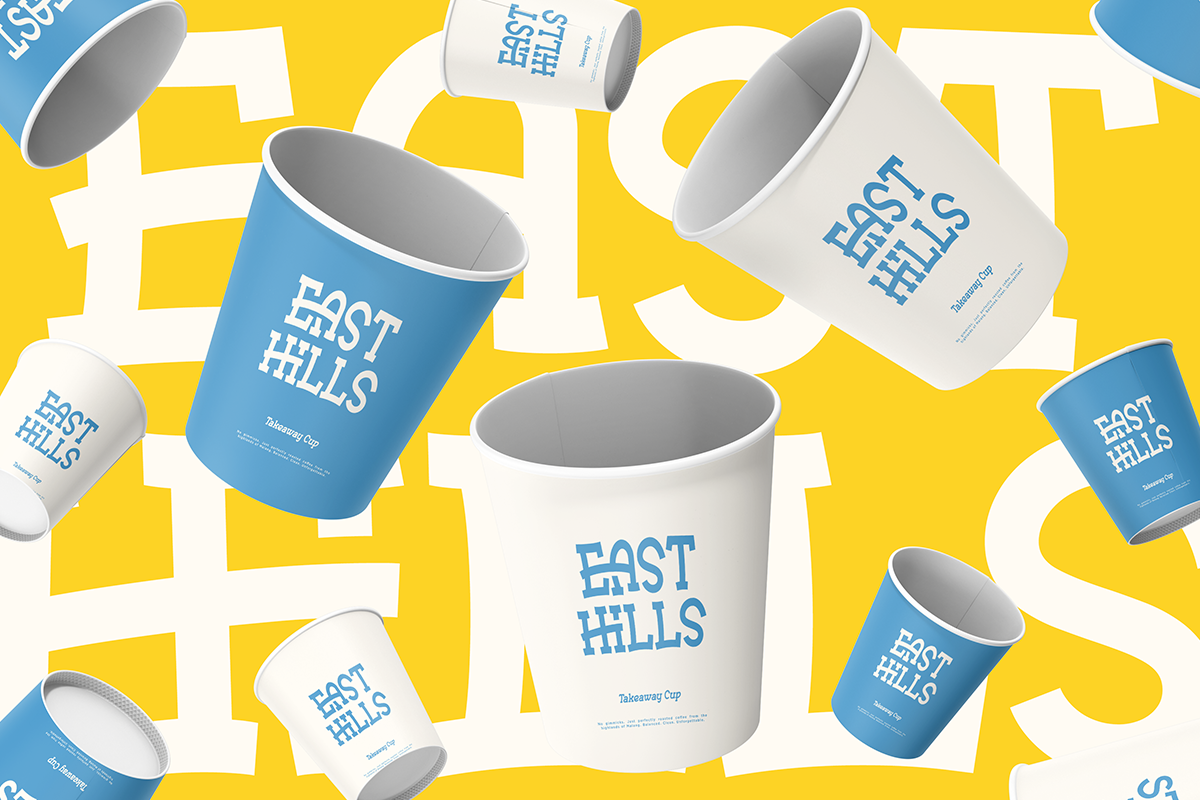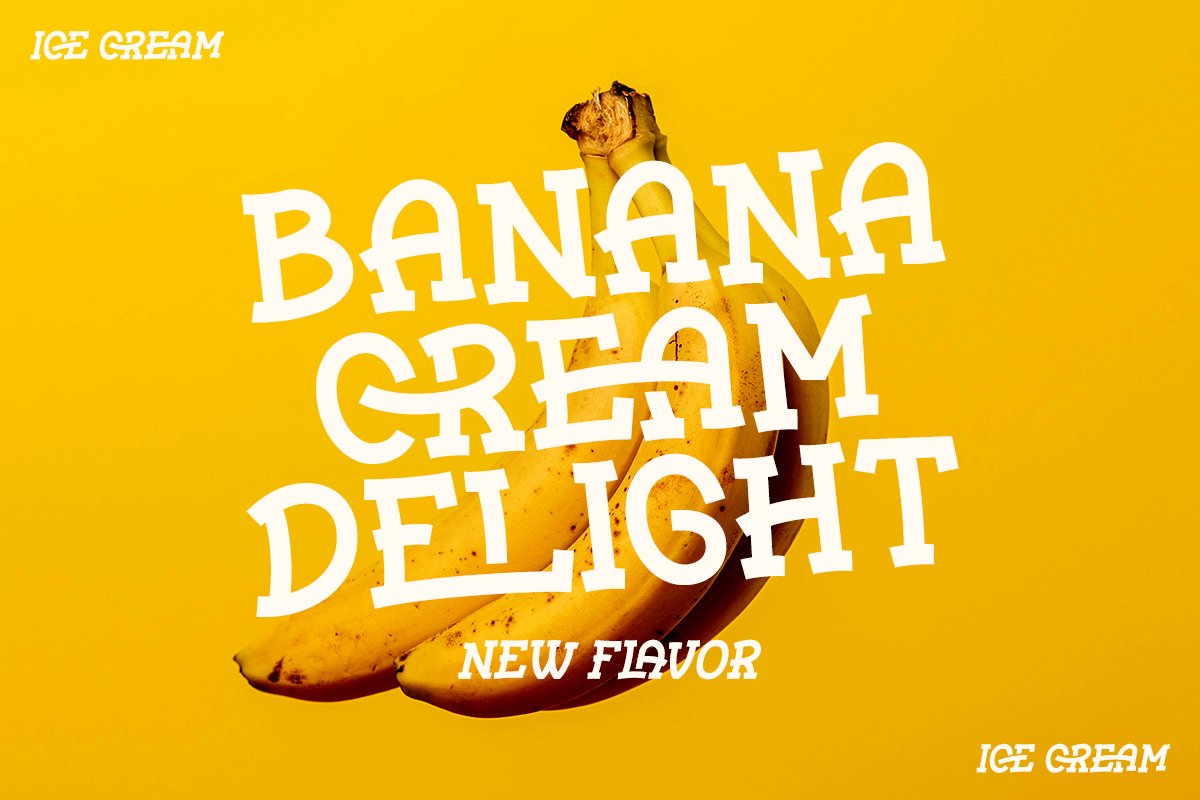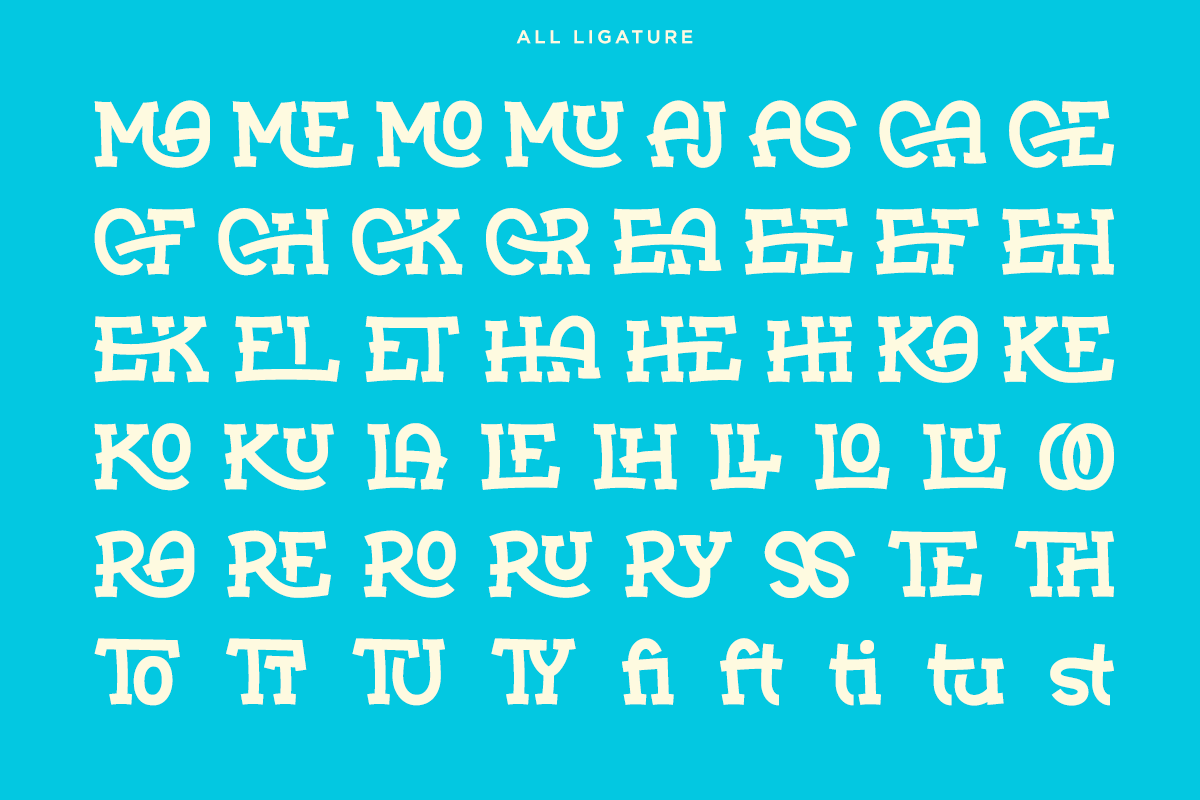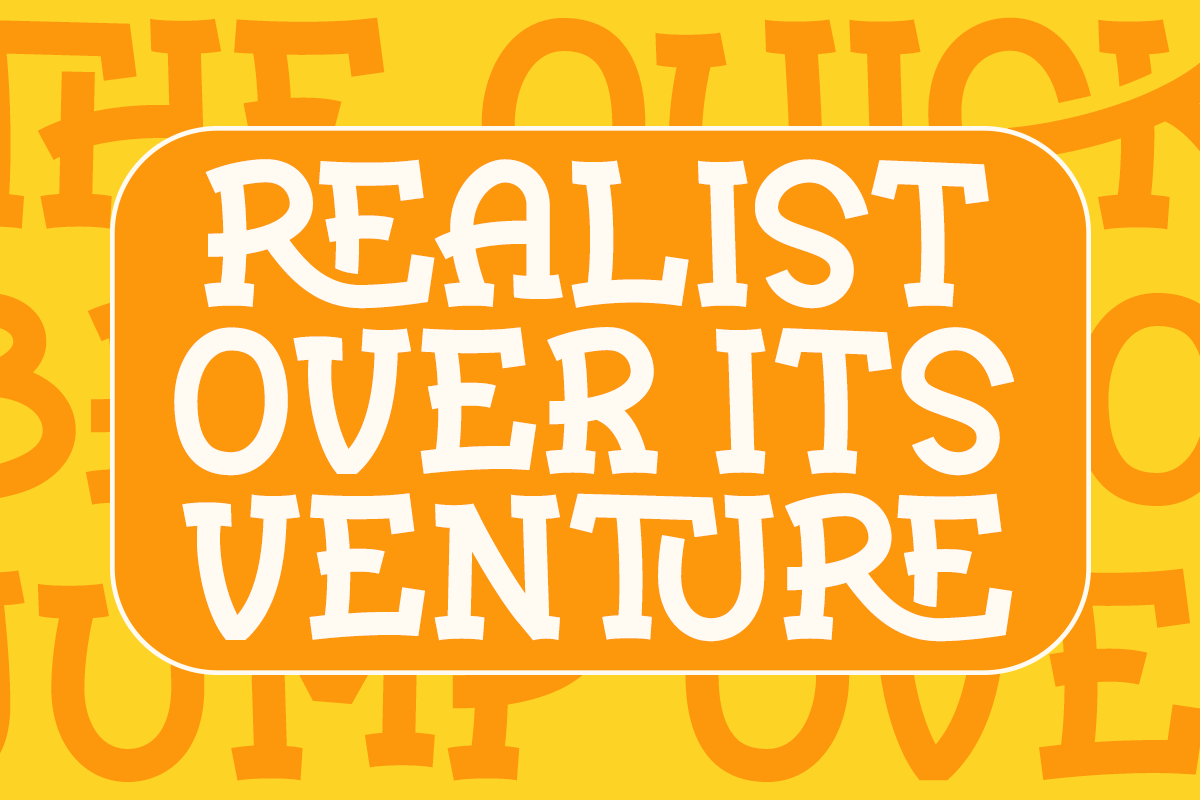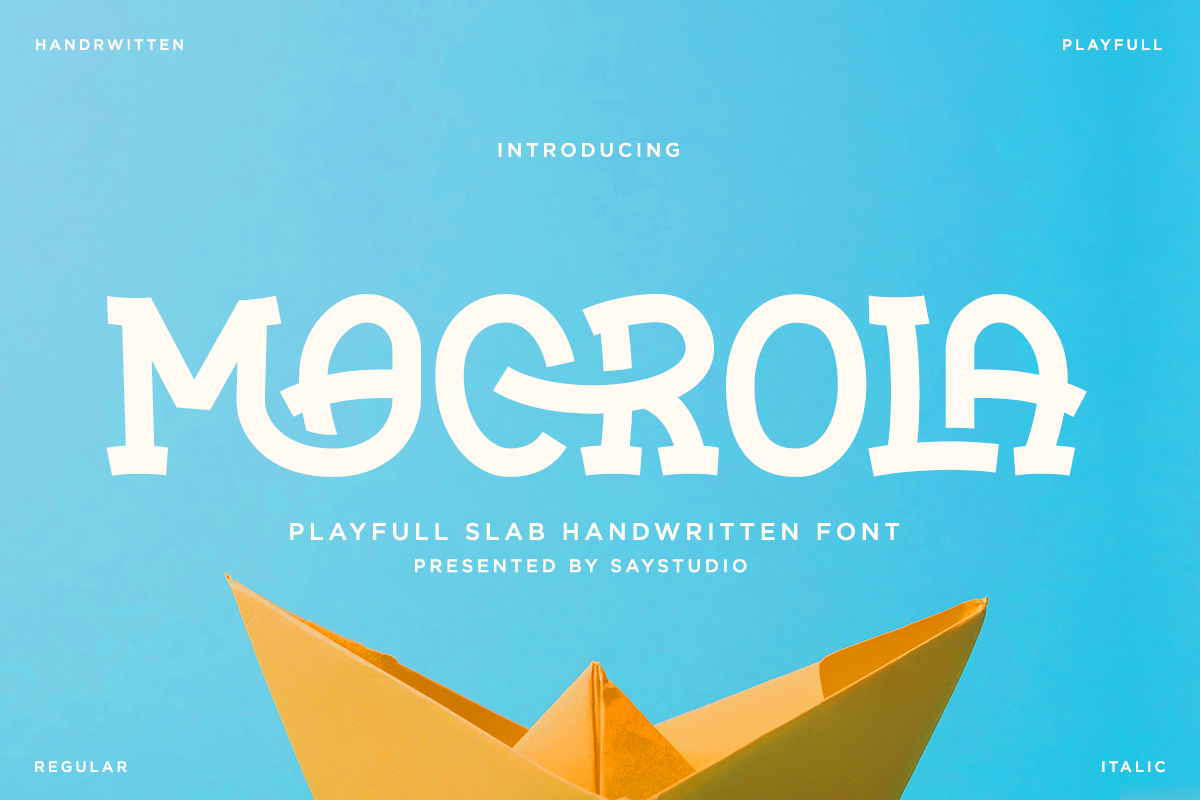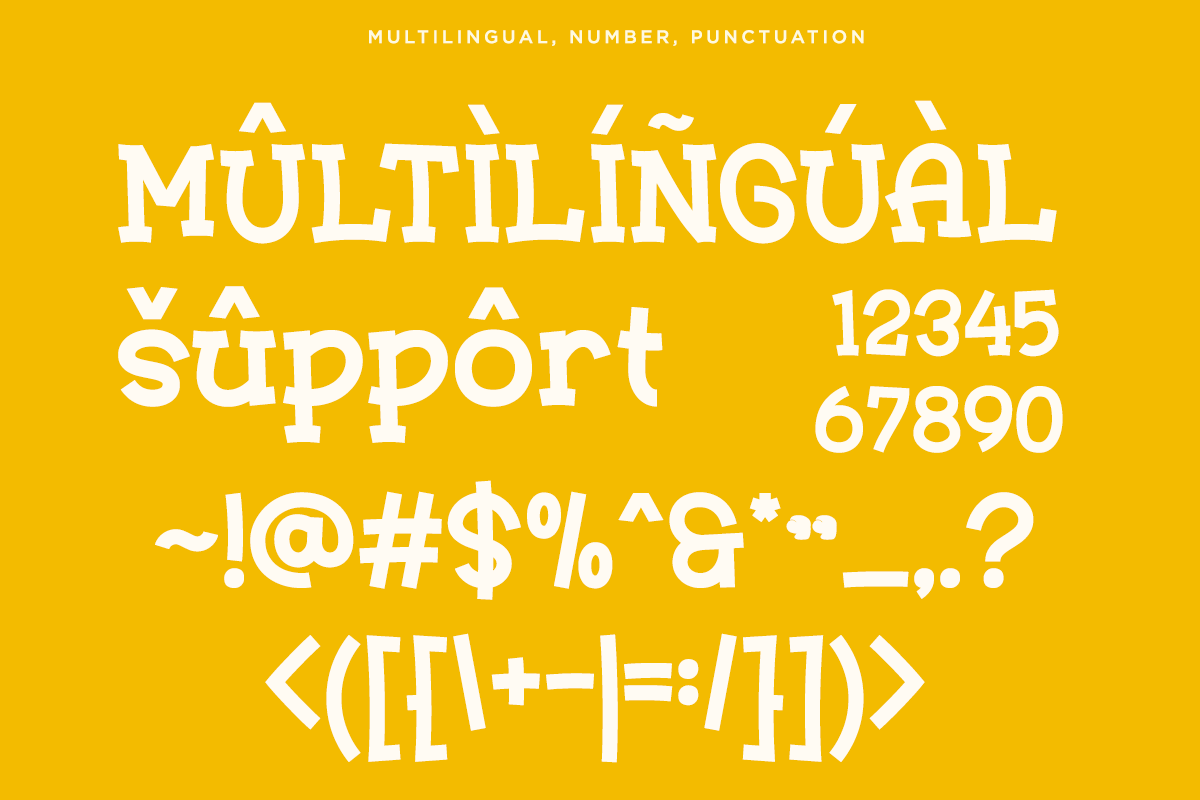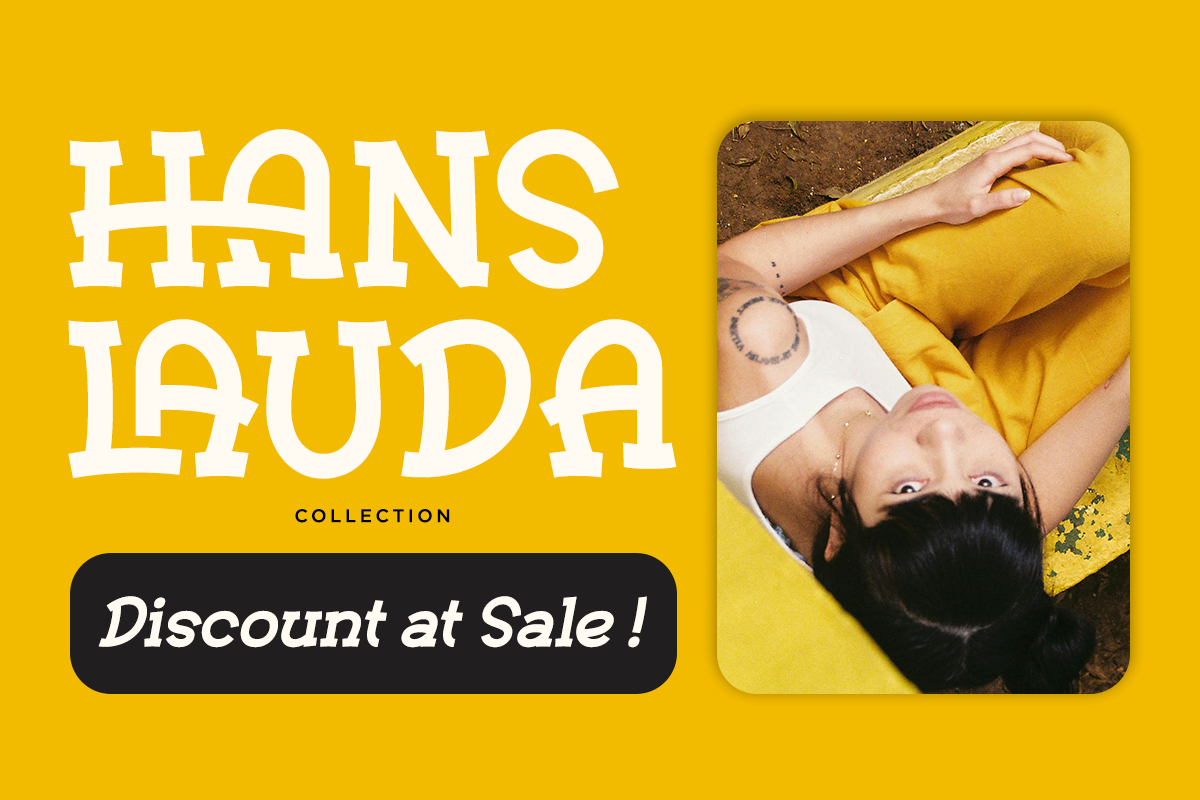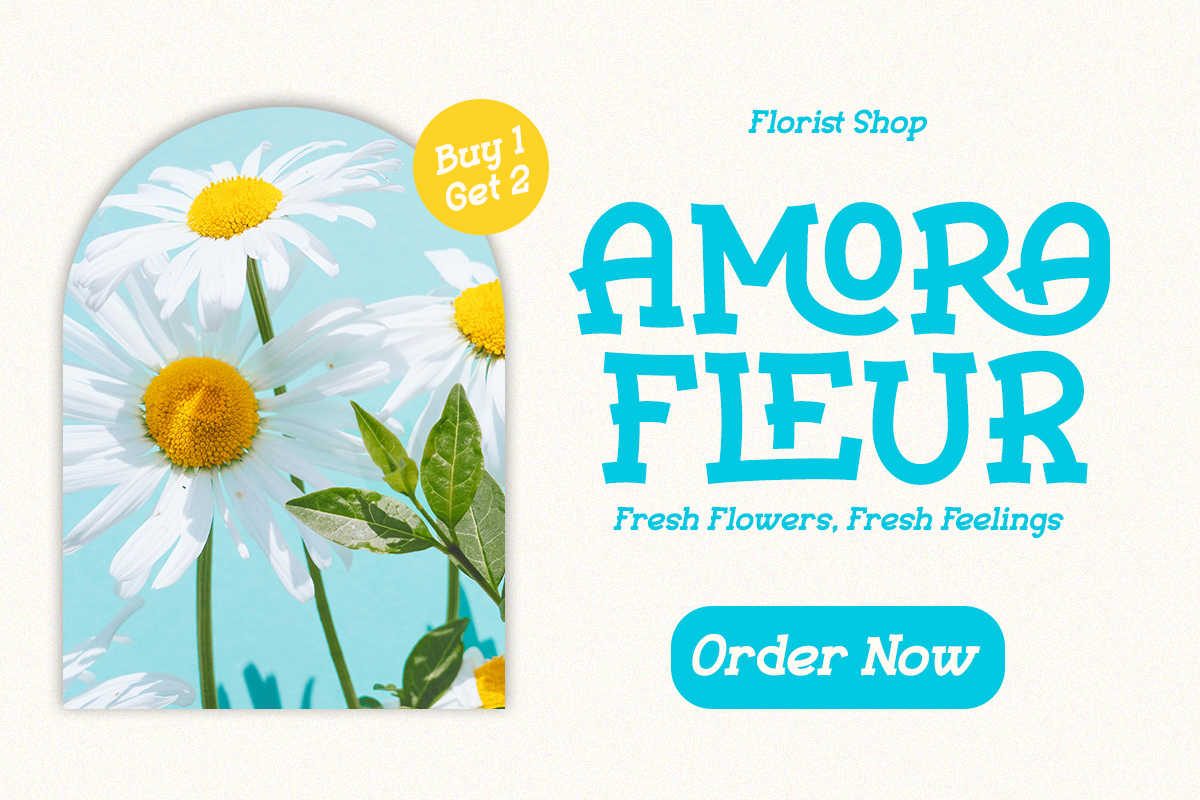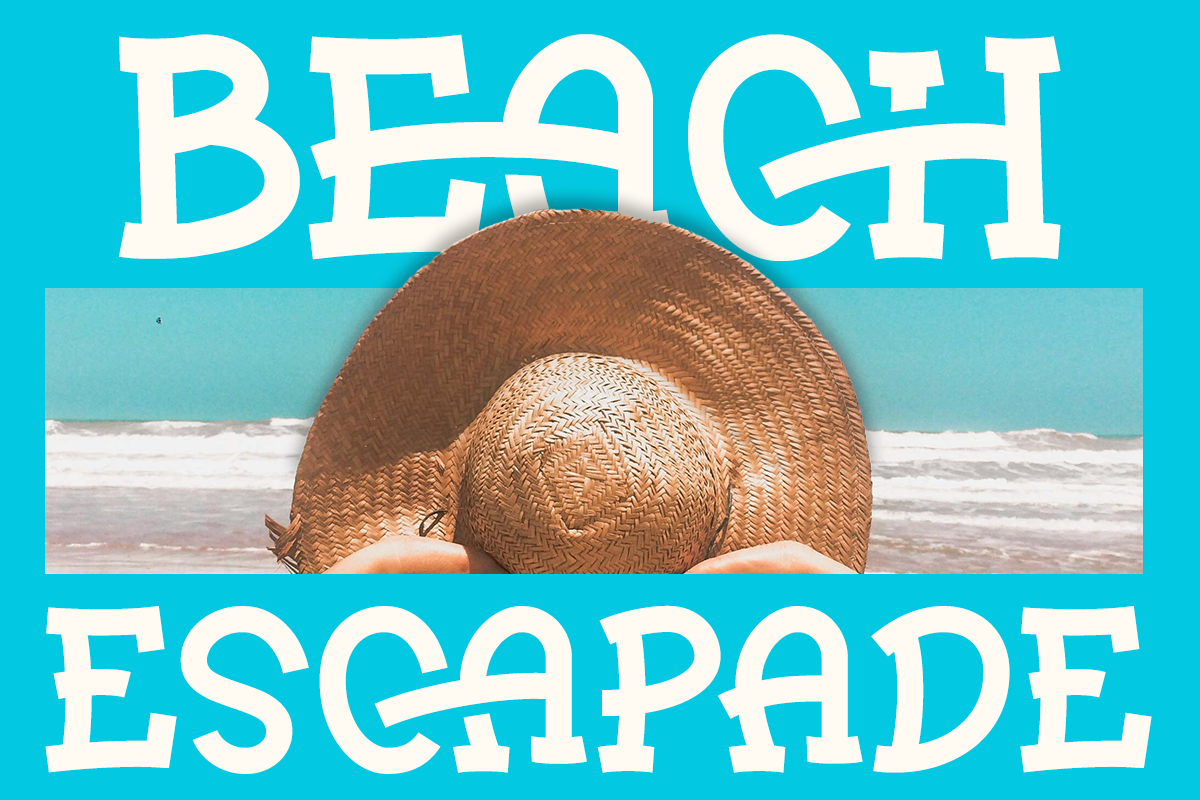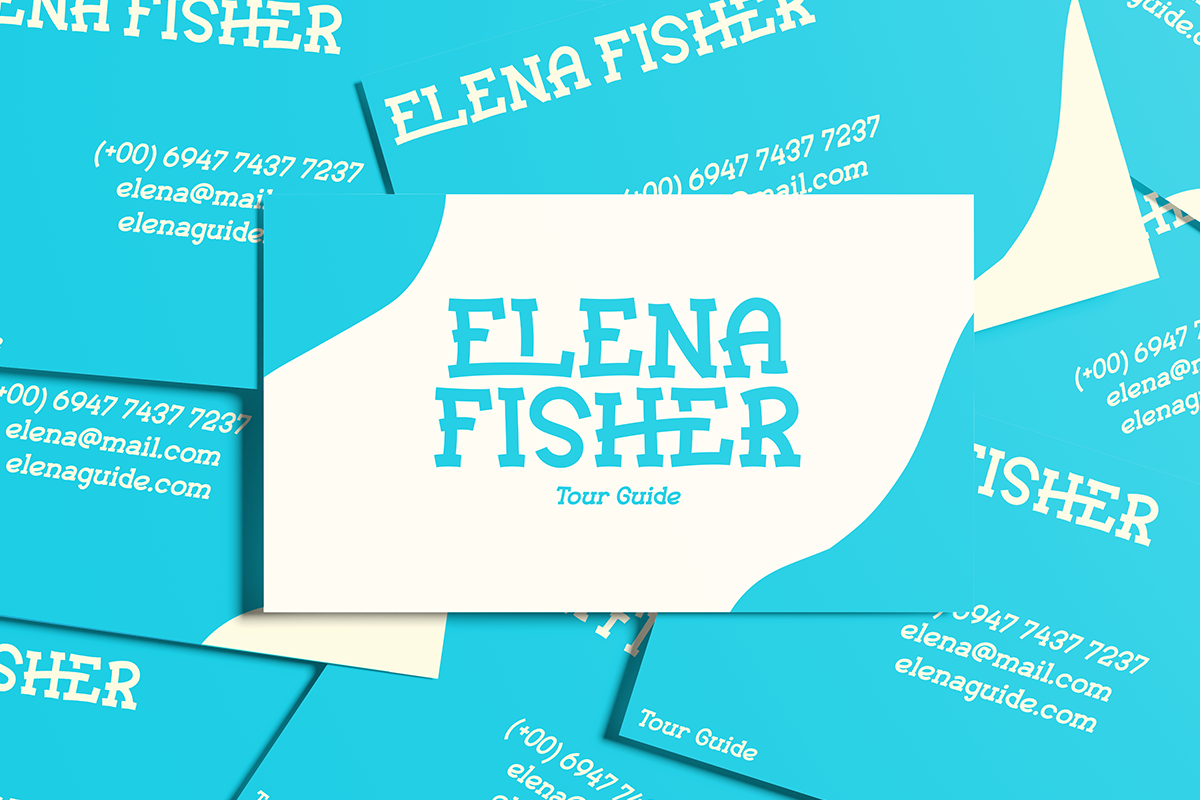
Macrola - Playful Slab Serif Font
Macrola is a playful slab serif font with bold serifs and lively shapes. Perfect for logos, posters, packaging, and branding, it blends a fun personality with modern style. With strong readability and a creative flair, Macrola is ideal for both digital and print designs that need a warm, approachable touch.
- Stylistic ligatures
- Multilingual SUpport